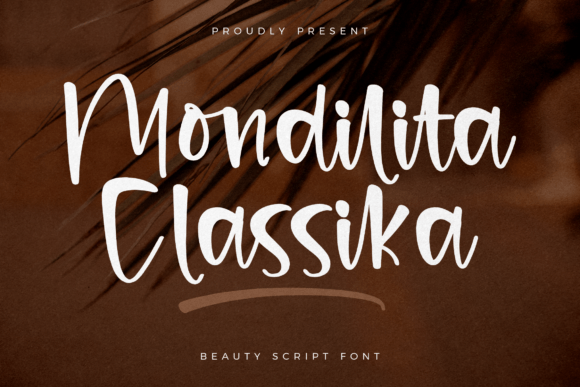
Meet Mondilita Classika, a handwritten font of extraordinary grace, where classic calligraphy intertwines with a modern-day charm. Created by the skilled artisans at Glorytype Studio, this font is a testament to the enduring elegance of handwritten artistry. Mondilita Classika is not just a font; it's an invitation to embark on a creative journey, transforming your projects into masterpieces.
Picture this: Your blog, adorned with the flowing strokes of Mondilita Classika. The words dance across the screen, captivating your readers with their sophisticated allure. Each letter, meticulously crafted, carries a story, inviting your audience into a world of elegance and timeless beauty.
Mondilita Classika's versatility is simply remarkable. Whether you're crafting social media posts that demand attention or designing logos that exude professionalism, this font flawlessly adapts to your creative vision. It's the perfect choice for bloggers, creatives, and anyone seeking a touch of sophistication in their digital creations.
Beyond its aesthetic prowess, Mondilita Classika is a font that speaks to the heart. Its graceful curves and delicate flourishes evoke a sense of nostalgia, drawing your audience into a bygone era of romance and charm. It's a font that speaks to the soul, leaving an indelible mark on those who encounter it.
Experience the Mondilita Classika difference today and elevate your projects to new heights. With its captivating design and versatility, this font is the key to unlocking your creative potential. Join the ranks of those who have embraced Mondilita Classika's timeless beauty and watch your creations blossom into works of art.